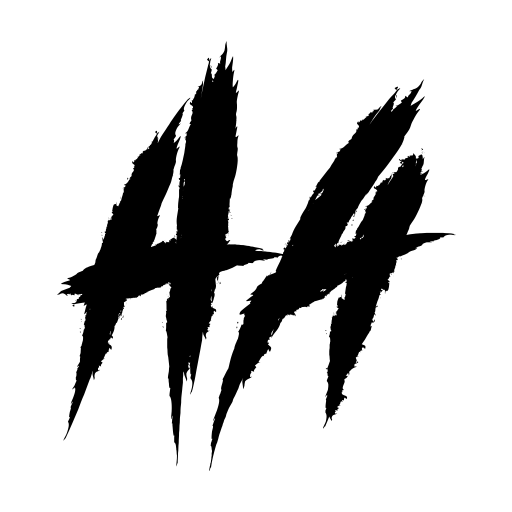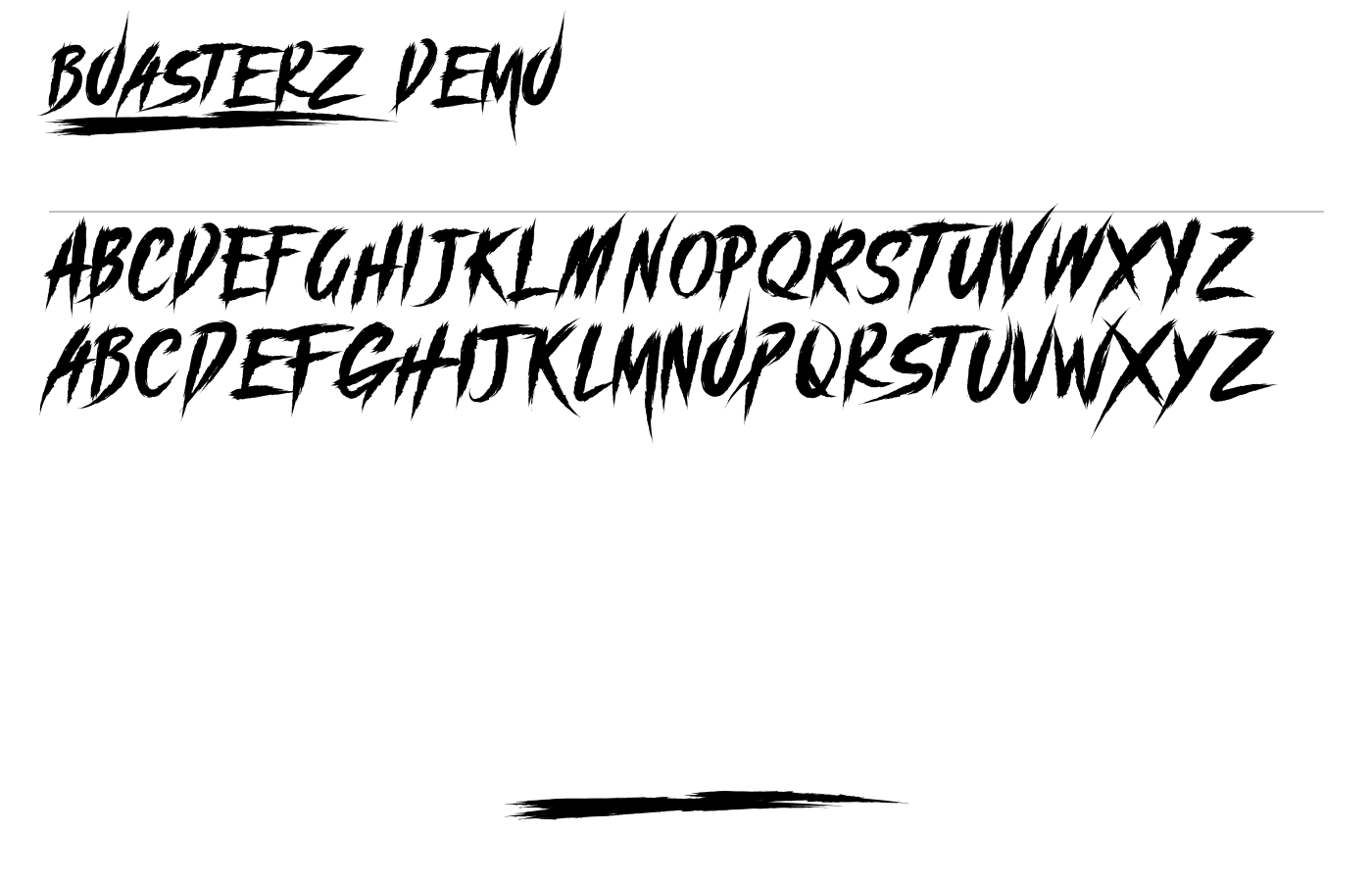
Boasterz Demo is a bold, edgy brush-script font with a dynamic, hand-painted look characterized by sharp, jagged strokes and irregular edges. Its high-energy style conveys a rebellious, aggressive personality, making it perfect for designs needing a strong impact, such as logos, posters, and urban fashion branding. This font excels in headline use where its distinctive, raw aesthetic can grab attention and express attitude.
boasterz] Demo Font
About boasterz] Demo Font
| Font family | boasterz] Demo Font |
| Designer | Knackpack Studio |